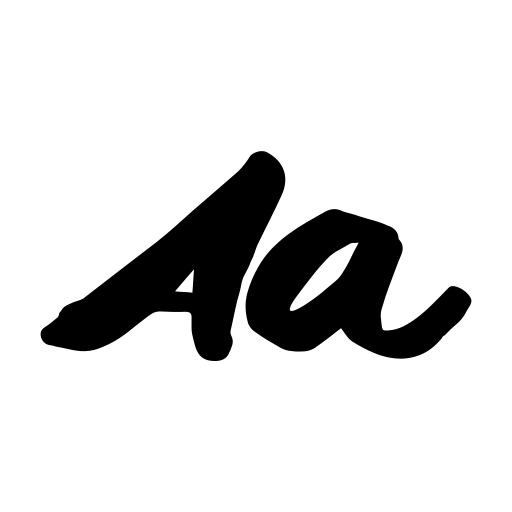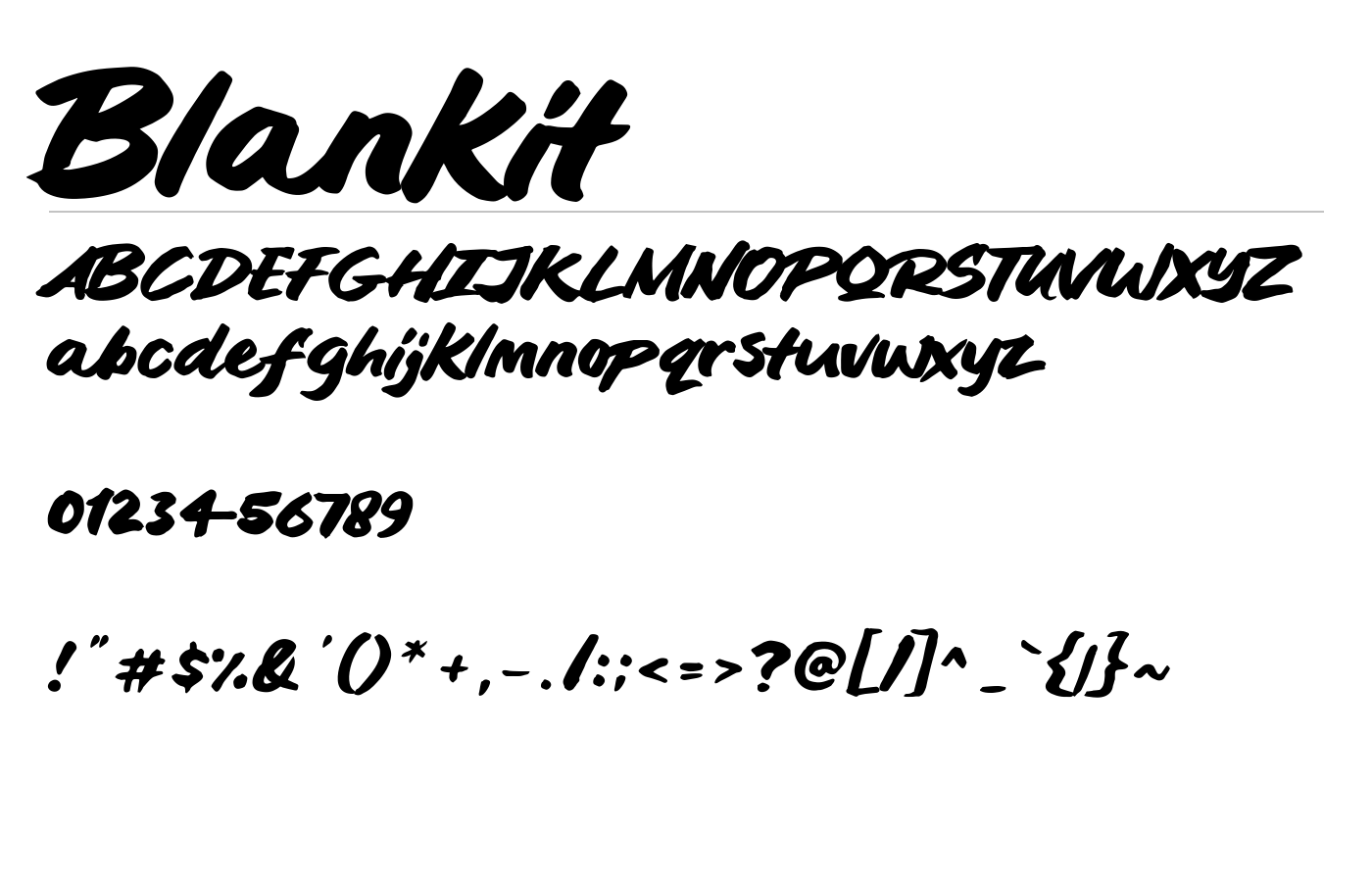
Blankit is a bold, brush-script font with a casual and dynamic feel, featuring smooth, rounded stroke endings and a lively handwritten style. Its energetic letterforms and slightly condensed width make it perfect for creating eye-catching headlines, logos, or branding that aims to convey creativity, friendliness, and approachability. This font works especially well for projects needing a personal, artistic touch without sacrificing readability.
Blankit Font
About Blankit Font
| Font family | Blankit Font |